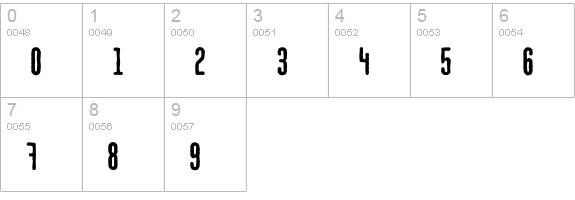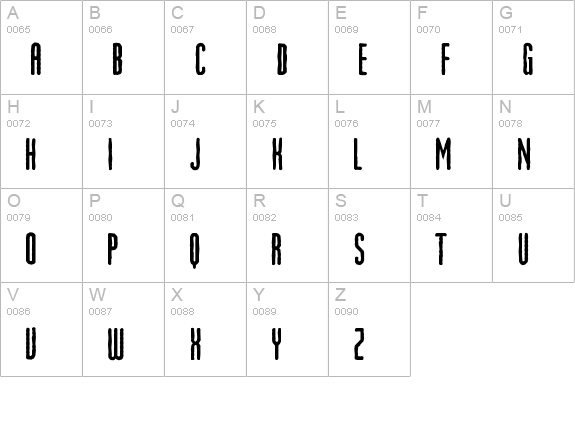
MartenCyrG-Rough Font Details
MartenCyrG-Rough is a unique and innovative font that combines the charm of hand-drawn elements with the precision of digital design. This font exudes a rough and edgy vibe, perfect for adding a touch of personality to any creative project. With its bold and rugged strokes, MartenCyrG-Rough captures attention and stands out from the crowd. Each letter is carefully crafted to maintain a balance between rawness and legibility, making it suitable for both headlines and body text. Whether used in print or digital media, this font adds a distinct character and a sense of authenticity. One of the best things about MartenCyrG-Rough is that it is free to use. You can easily download it from FontsMarket.com, a reputable online platform that offers a vast collection of high-quality fonts. This means you can enhance your designs without breaking the bank, allowing you to freely explore your creative boundaries. The versatility of MartenCyrG-Rough is another noteworthy aspect. It seamlessly adapts to various design styles and themes, making it an excellent choice for a wide range of projects. Whether you are working on a vintage-inspired poster, a modern website, or a playful invitation, this font effortlessly adds a touch of artistic flair. In addition to its aesthetic appeal, MartenCyrG-Rough also boasts exceptional readability. Each letter is carefully designed to ensure that it is easily distinguishable, even at smaller sizes. This font is ideal for conveying important information without sacrificing style or legibility. Overall, MartenCyrG-Rough is a font that combines creativity, versatility, and functionality. It is freely available to download at FontsMarket.com, allowing you to elevate your designs without any cost constraints. Whether you are a professional designer or a hobbyist, this font is a valuable asset that will undoubtedly enhance your creative endeavors.